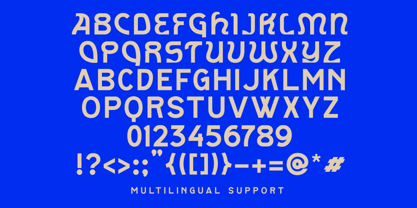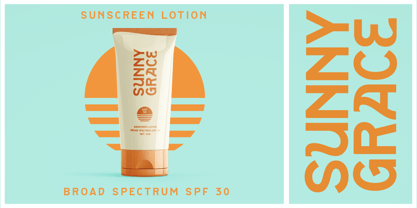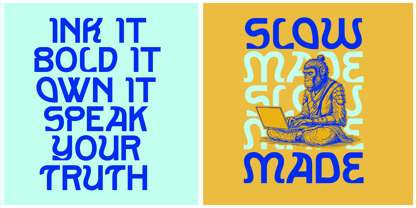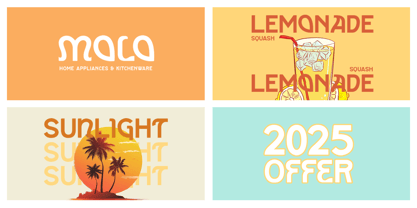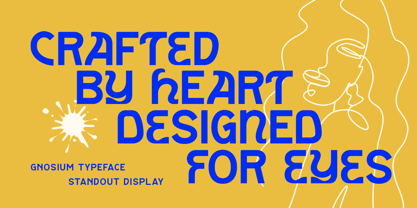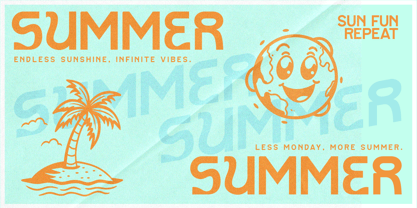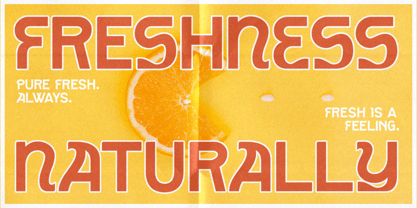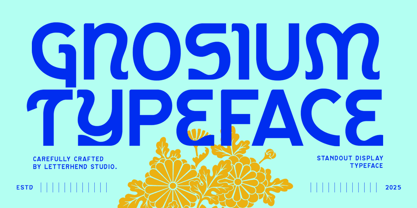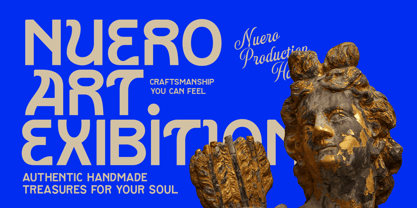
Gnosium
by Letterhend
Gnosium Typeface is an artistic display font designed to make a striking impact. With its futuristic curves, geometric cuts, and playful letterforms, this typeface is perfect for modern branding, posters, editorial headlines, and creative visual projects. It radiates a retro-futuristic vibe while maintaining strong legibility and a unique character in every glyph. Features : Uppercase & lowercase Numbers and punctuation Alternates & Ligatures Multilingual Support PUA encoded
Designers: Hendry Juanda
Foundry: Letterhend